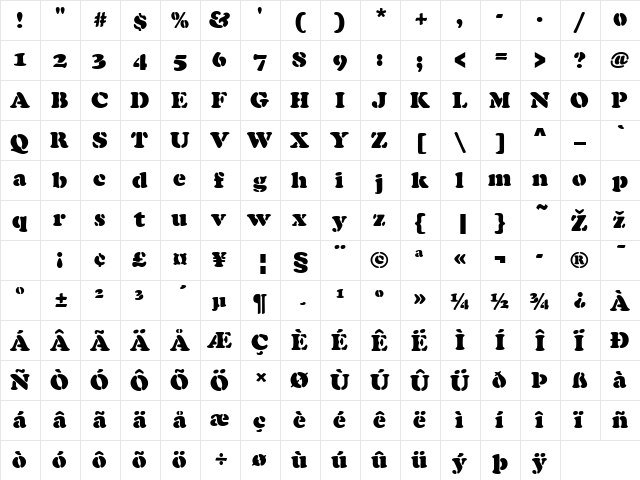
ELLIS Regular
Design Context for ELLIS Typeface
ELLIS takes a measured approach to typography — its balanced proportions and neutral character make it a reliable workhorse for both digital and print work.